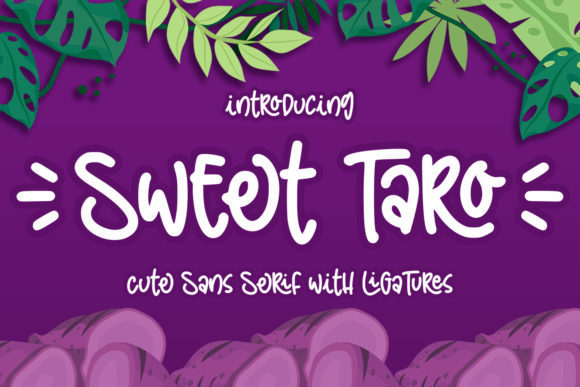
Introducing the Sweet Taro Font - A Whimsical Journey into the World of Handwritten Charm!
Embark on a delightful adventure with Sweet Taro, a captivating handwritten font meticulously crafted to bring a touch of magic to your creative projects. Inspired by the sweetness of taro and the whimsical nature of handwritten notes, this font exudes charm, playfulness, and a dash of nostalgia.
With its meticulously designed characters, Sweet Taro captures the essence of handwritten beauty, adding a personal touch to any design. Its playful curves and unique swashes dance across the page, creating a sense of movement and energy that is sure to captivate your audience.
Whether you're creating eye-catching flyers, whimsical invitations, or heartwarming greeting cards, Sweet Taro is your perfect companion. Its versatility allows it to effortlessly blend into various design aesthetics, from the playful and lighthearted to the elegant and sophisticated.
Let Sweet Taro be your secret weapon to create designs that resonate with your audience. Its charming personality will infuse your projects with a touch of warmth, making them stand out from the crowd. Embrace the magic of Sweet Taro and embark on a creative journey that will leave a lasting impression.